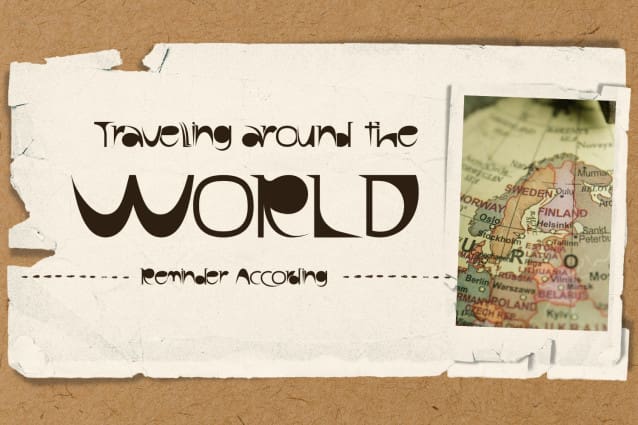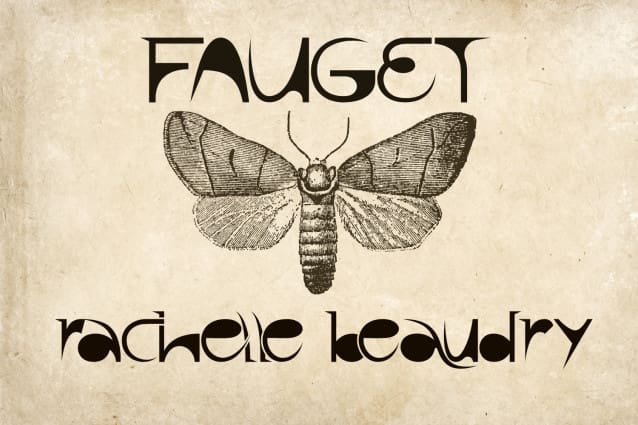
Reminder According Font
Reminder According Font. Bold stroke, fun character with a bit of ligatures. To give you an extra creative work. A versatile font that works in both uppercase and lowercase sizes, suitable for a wide variety of projects such as a display font for headings, logo fonts, invitations, branding, book covers, sticker, card, product packaging, product mockup, mugs, posters, labels, editorials, art deco, and any type of advertising purpose.
Reminder According was built with OpenType features and includes 100 ligatures, alternate, numbers, punctuation, and it also supports other languages.